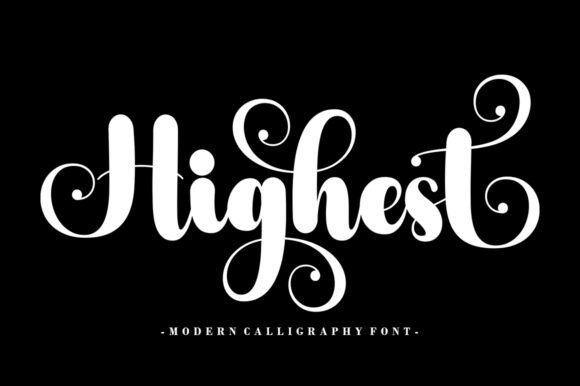
Introducing Highest Font: Elevate Your Designs with Elegance and Class
In the world of typography, fonts play a crucial role in conveying the tone and personality of a design project. Among the numerous fonts available, Highest Font stands out for its unique blend of traditional calligraphy and modern flair. In this article, we’ll explore the features, benefits, and applications of Highest Font, and why it’s an excellent choice for designers seeking to add a touch of sophistication to their work.
What is Highest Font?
Highest Font is a trendy handwritten font that exudes a contemporary atmosphere while maintaining impeccable form. Inspired by timeless classic calligraphy, this font combines the elegance of traditional typography with the freshness of modern design. Its unique character set makes it an ideal choice for a wide range of design projects, from branding and advertising to packaging and digital media.
Key Features of Highest Font
- Contemporary yet Classic: Highest Font strikes the perfect balance between modern style and classic elegance, making it versatile for various design applications.
- Handwritten with Precision: Each letterform is carefully crafted to ensure a natural, handwritten feel that adds a personal touch to your designs.
- Impeccable Form: The font’s design ensures clarity and readability, even at smaller sizes, making it suitable for body text and headlines.
- Elegant and Classy: Highest Font brings an air of sophistication to any design project, making it perfect for luxury brands, high-end products, and creative endeavors.
Benefits of Using Highest Font
Choosing Highest Font for your design projects comes with numerous benefits:
- Enhance Brand Image: With its elegant and classy appearance, Highest Font can significantly elevate your brand’s visual identity.
- Versatility: This font is suitable for a wide range of design projects, including logos, brochures, posters, digital ads, and more.
- Easy to Read: Despite its elegant nature, Highest Font maintains excellent readability, ensuring your message is conveyed effectively.
- Unique Appeal: Stand out from the crowd with a font that combines traditional charm with modern aesthetics.
Applications of Highest Font
The versatility of Highest Font makes it suitable for various design applications:
- Branding and Logo Design: Create a lasting impression with a logo that embodies elegance and sophistication.
- Advertising and Marketing Materials: Elevate your ad campaigns with a font that captures attention and conveys luxury.
- Packaging Design: Add a touch of class to product packaging and make it stand out on store shelves.
- Digital Media: Use Highest Font in website designs, social media graphics, and digital ads to create a cohesive and luxurious online presence.
How to Use Highest Font Effectively
To maximize the impact of Highest Font in your designs, consider the following tips:
- Pair with Complementary Fonts: Combine Highest Font with simpler fonts for body text to create visual hierarchy and balance.
- Adjust Size and Weight: Experiment with different sizes and weights to add emphasis and create a dynamic design.
- Use in Headlines and Titles: Take advantage of Highest Font’s elegant appearance in headlines and titles to capture attention.
- Maintain Consistency: Use Highest Font consistently across your design project to reinforce brand identity.
| Author | PriorityType |
Highest Font is a versatile and elegant typeface that brings a touch of sophistication to any design project. Its unique blend of classic calligraphy and modern style makes it an excellent choice for designers aiming to create visually appealing and impactful designs. Whether you’re working on branding, advertising, packaging, or digital media, Highest Font is sure to elevate your work and leave a lasting impression.
Frequently Asked Questions (FAQs)
- What is Highest Font? Highest Font is a trendy handwritten font inspired by classic calligraphy, offering a contemporary yet elegant appearance.
- Is Highest Font suitable for body text? Yes, Highest Font maintains readability even at smaller sizes, making it suitable for body text.
Final Thoughts
Incorporating Highest Font into your design workflow can significantly enhance the aesthetic appeal and professionalism of your projects. Its elegant and classy appearance, combined with versatility and readability, makes it a valuable asset for designers seeking to create high-quality designs. Explore the possibilities of Highest Font and discover how it can elevate your designs to new heights.